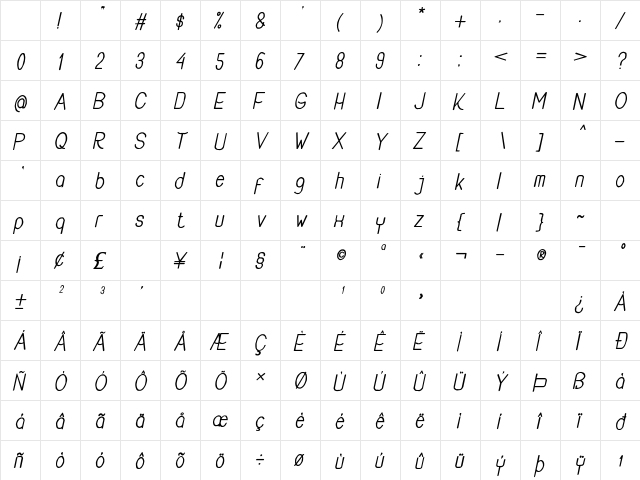
Complete Buon Umore Rough Bold Italic glyph index. Displaying only characters natively supported by Buon Umore Rough Bold Italic font.
Buon Umore Rough embraces imperfection - its rough, textured character adds raw authenticity to designs that want to feel lived-in and unconventional. The slanted form adds forward momentum and visual energy.